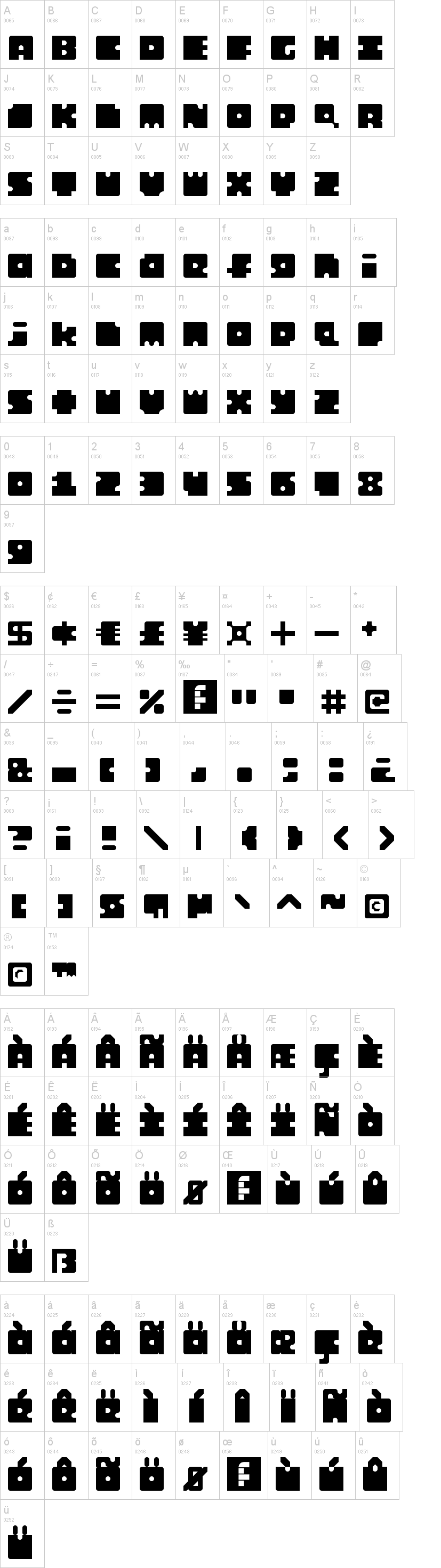
Шрифт Monosquare
A monospaced font based around the idea of making recognizable characters by removing as little as possible from a square. Includes basic and extended Latin characters.